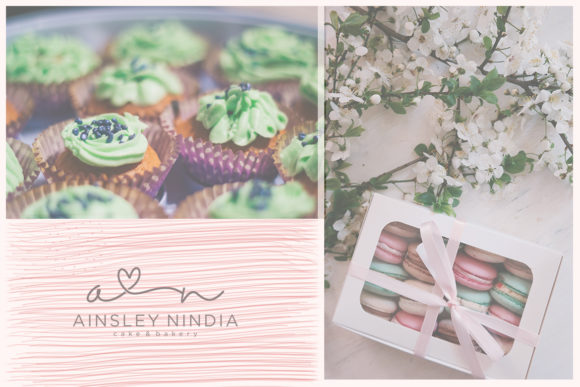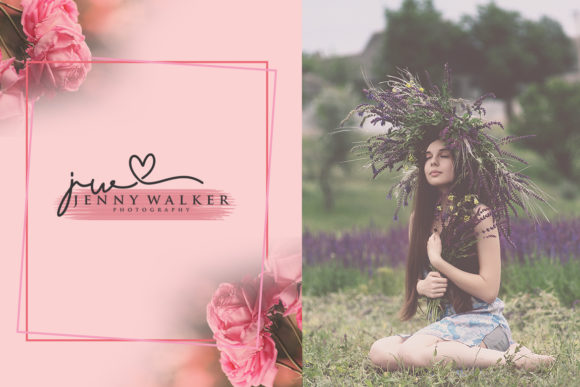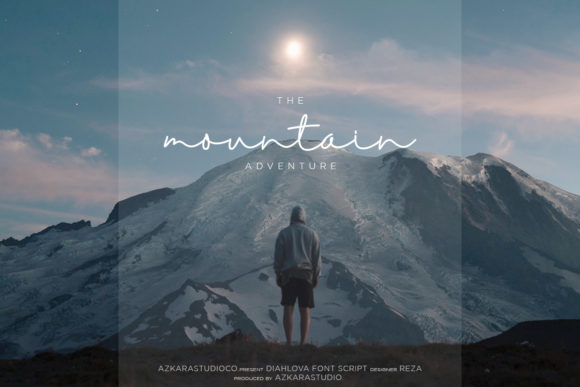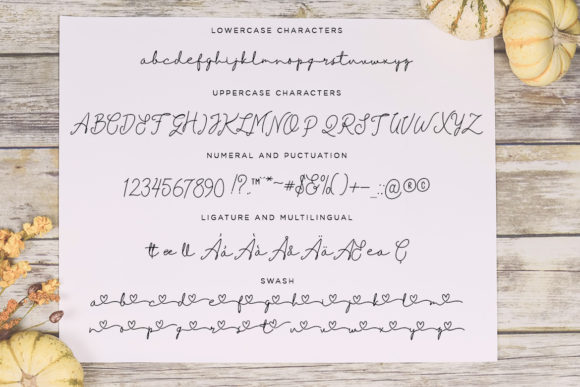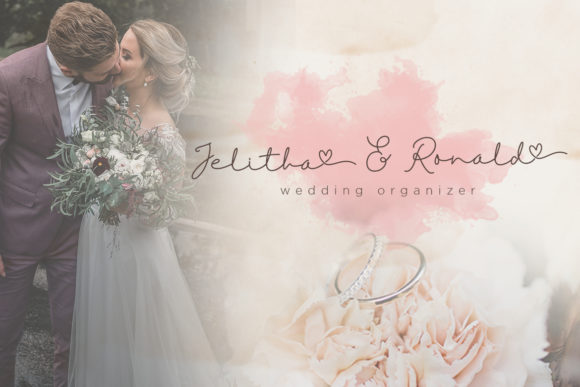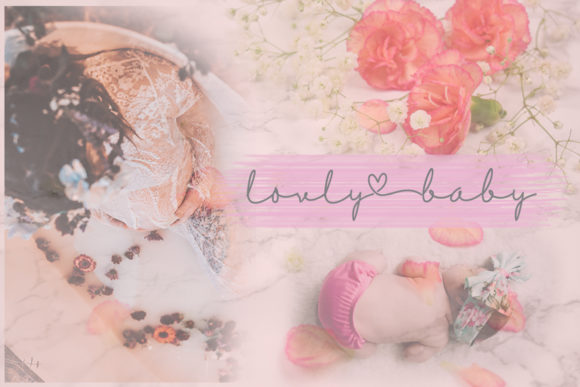
Diahlova Font
About Diahlova Font
Diahlova is a sweet and light monoline script with beautiful hearts in its swashes. It will add a romantic vibe to any design idea!